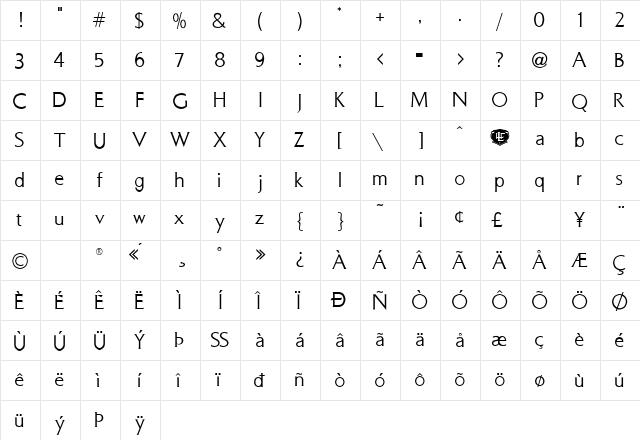
LHF Kellie Ann Roman
Design Context for LHF Kellie Ann Typeface
LHF Kellie Ann takes a measured approach to typography — its balanced proportions and neutral character make it a reliable workhorse for both digital and print work.